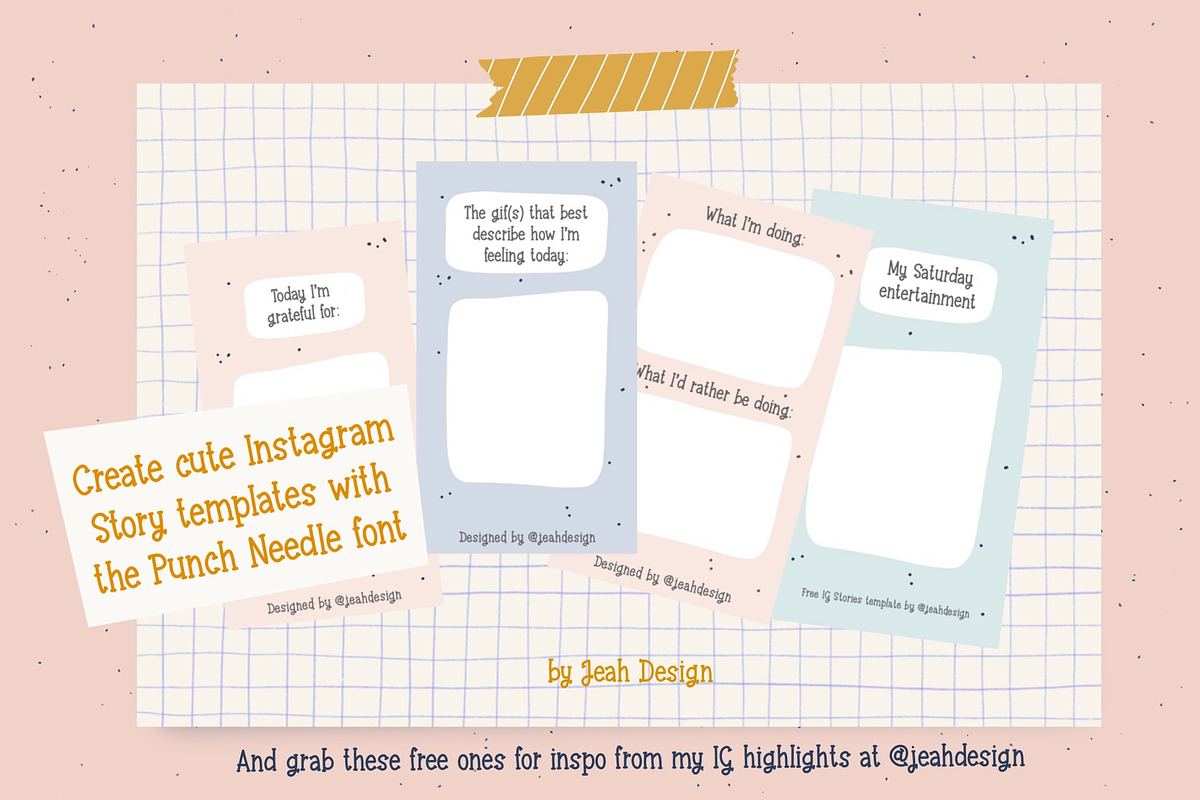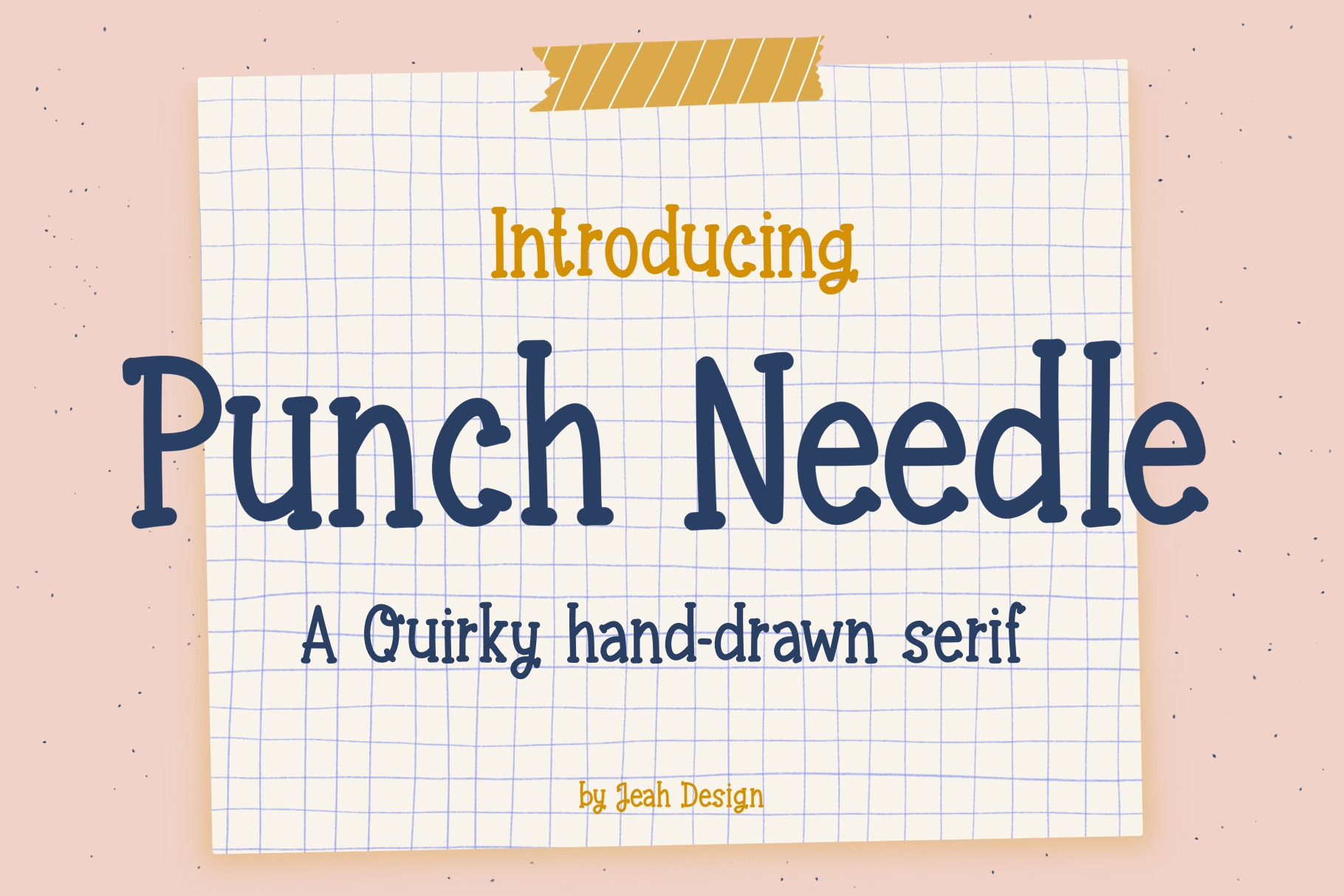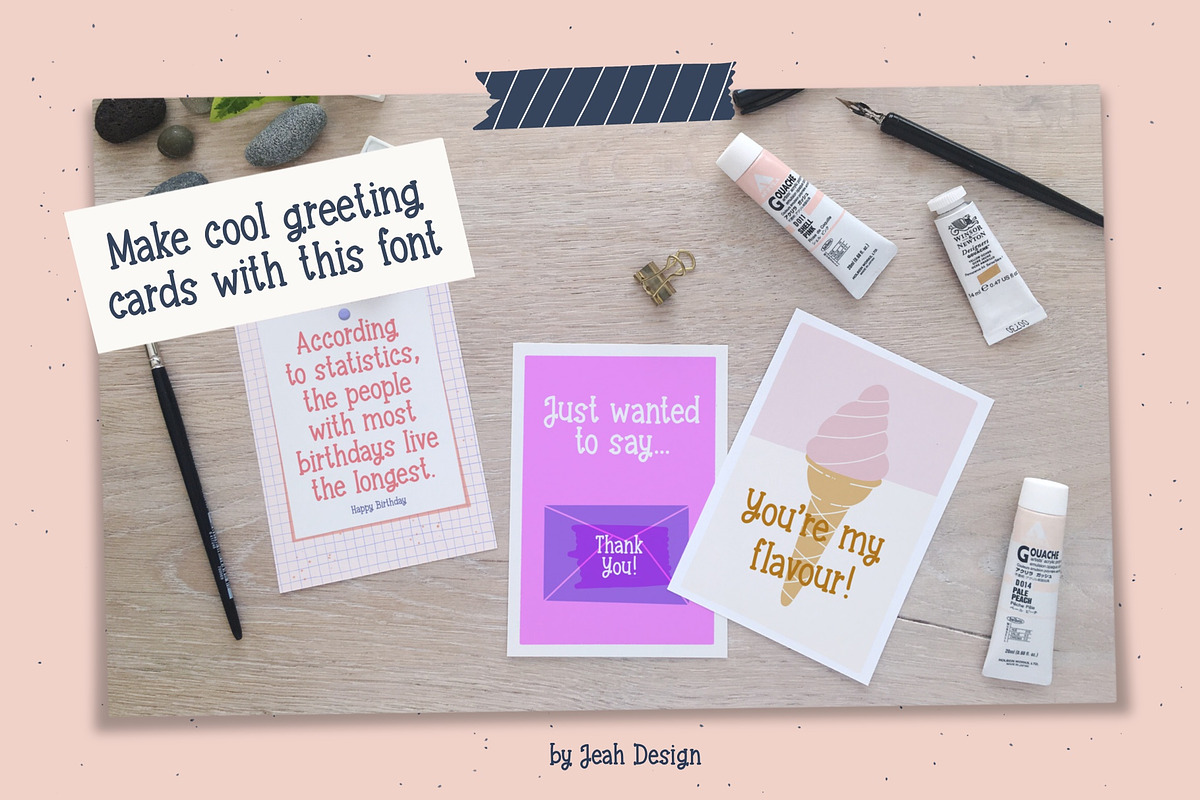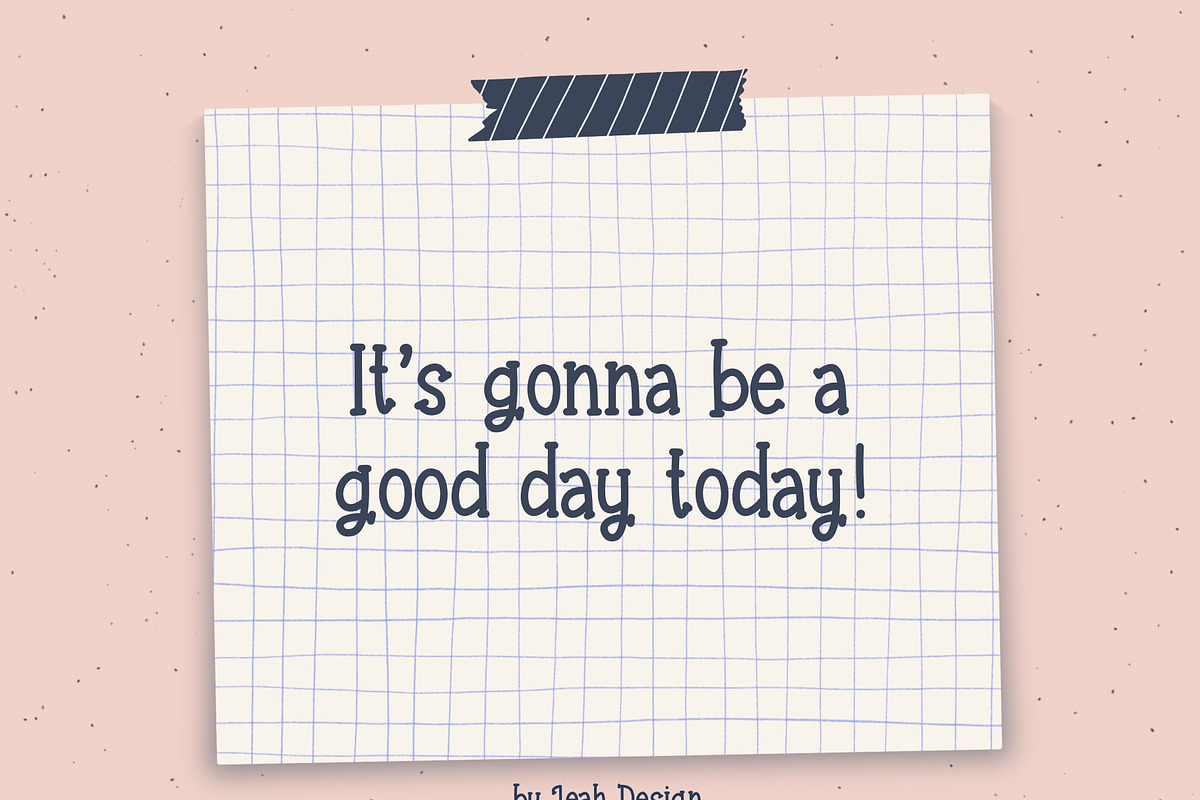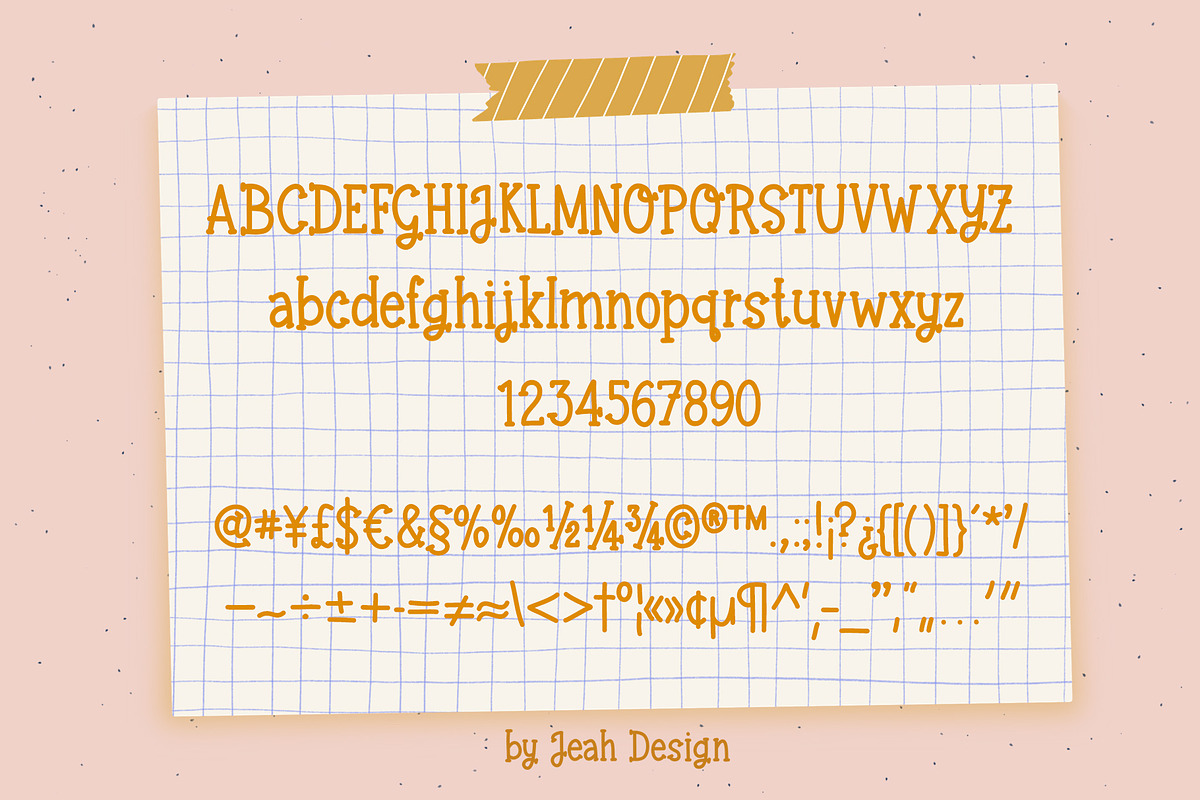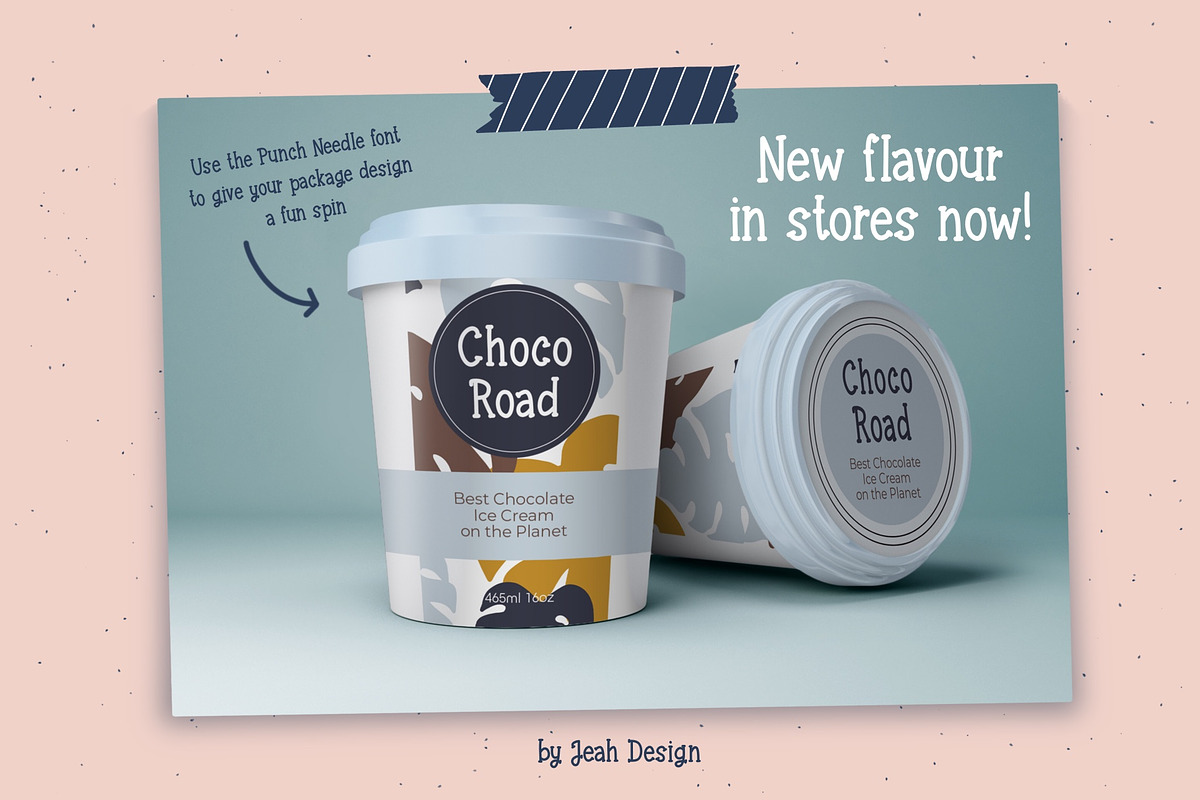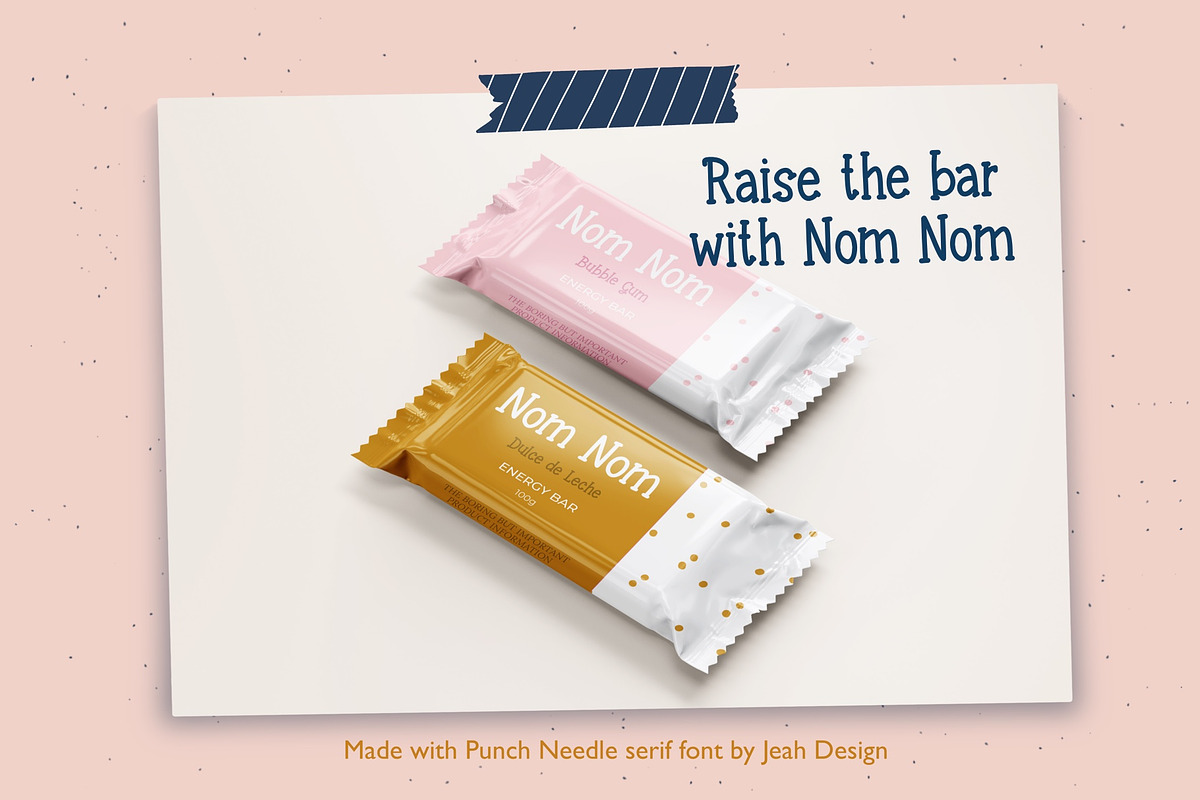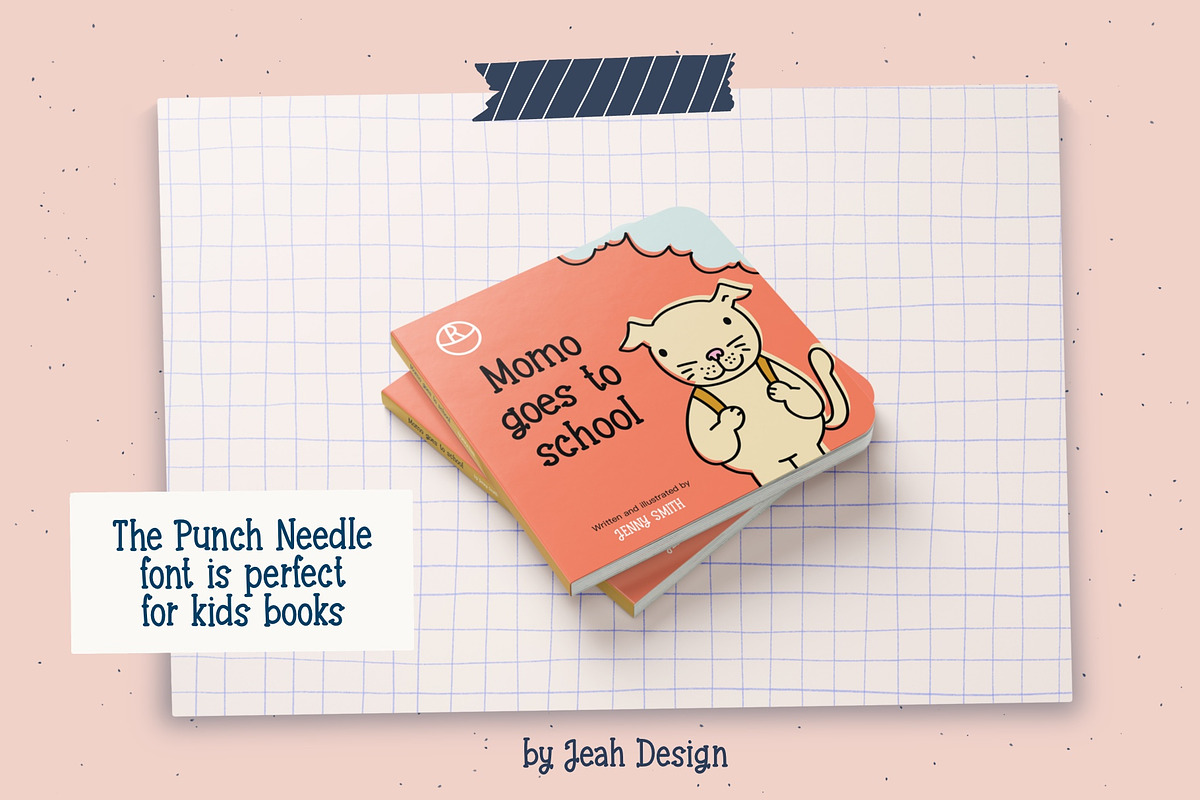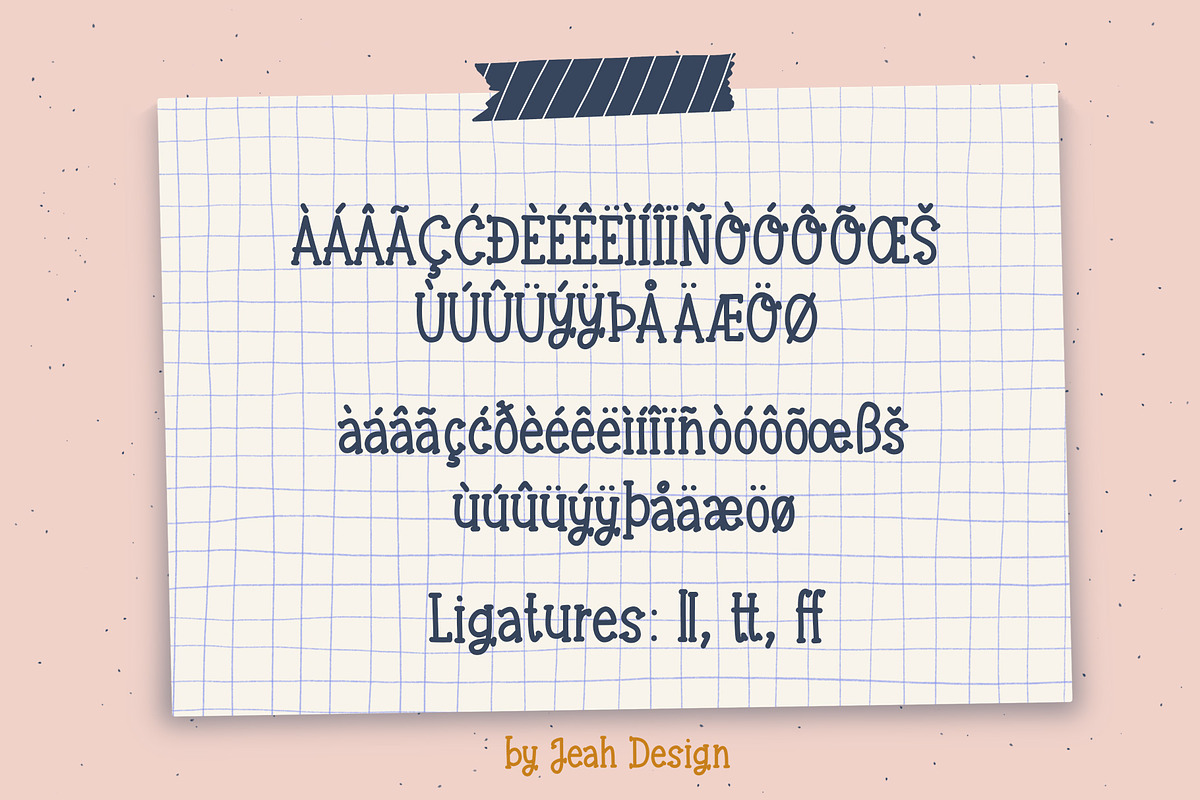
The Punch Needle Font
Punch Needle is a cute hand-drawn serif font that can be used for greeting cards, kids books, logos, vinyl cutting, social media, packaging, kids apparel, or anything that requires a fun and playful look.
Punch Needle comes with multilingual support: English, Finnish, French, German, Icelandic, Italian, Norwegian, Portuguese, Spanish, Swedish, Swiss German. Also, a wide variety of symbols are included, as well as some ligatures.